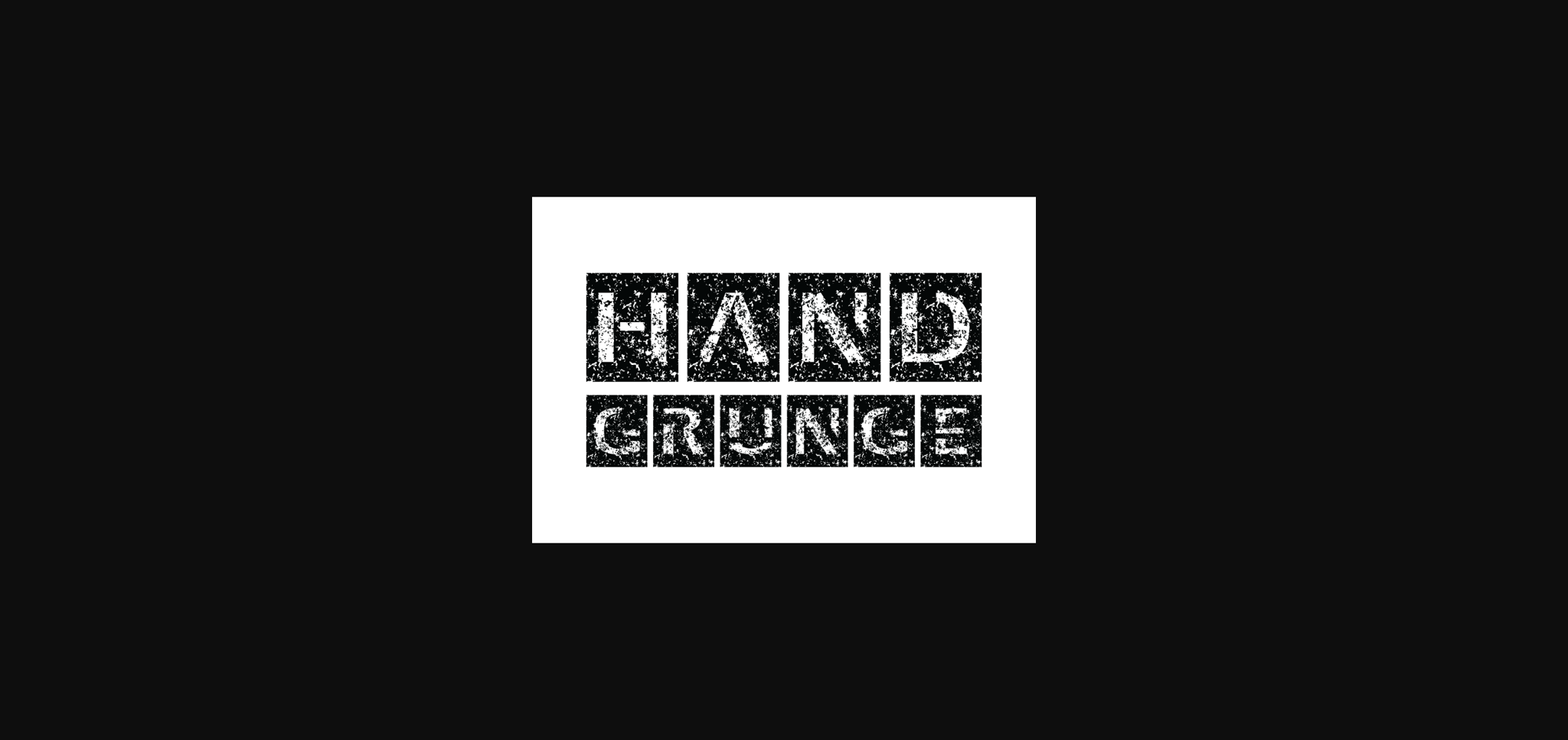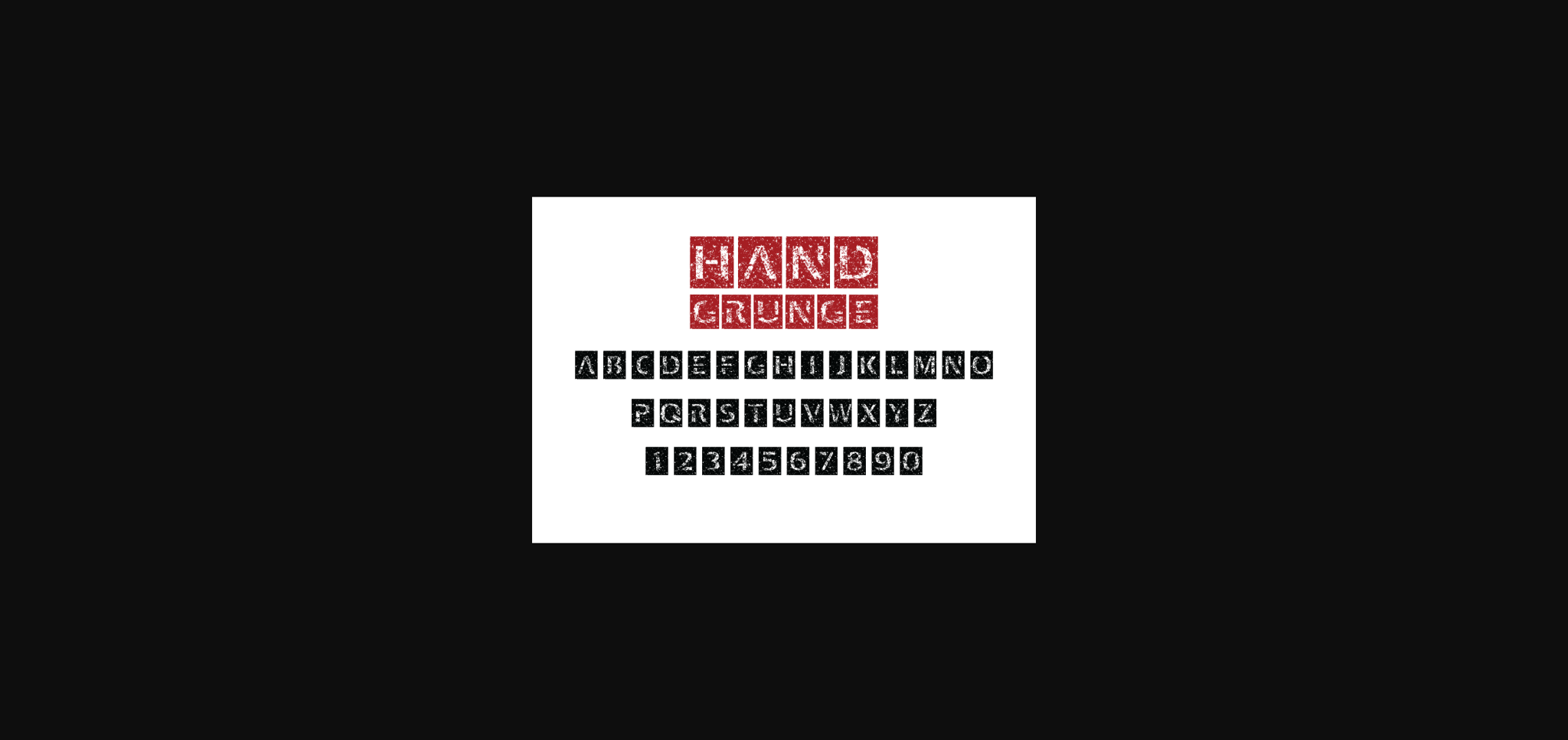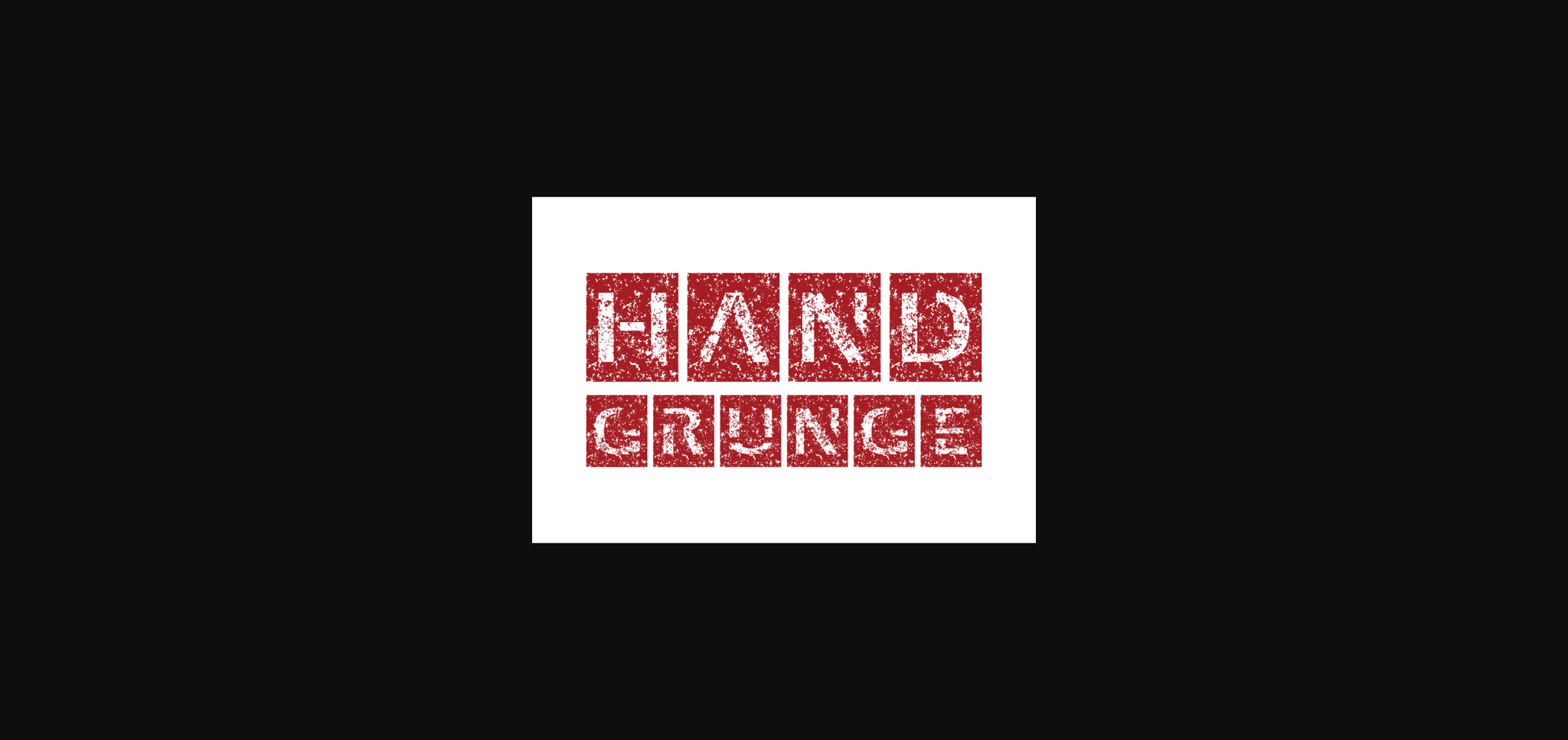
Hand Grunge Font
About Hand Grunge Font
Grunge Font exudes a raw, edgy aesthetic perfect for adding character to your design projects. Its clean lines and bold strokes create a distinctive visual impact, while the subtle grunge texture adds a touch of authenticity. All characters have the same level of detail as enlarged letters on top. You can apply it to any project.